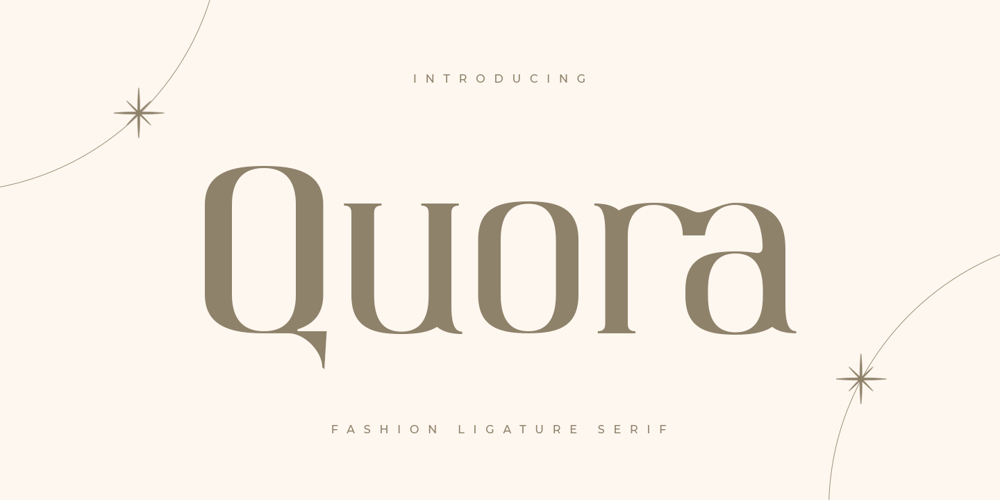
Quora Style Font Family was designed by Zamroni Hamzah and published by Sensatype Studio. Quora Style contains 1 styles and family package options. A Fashion Ligature Serif font that we created special for elegant branding needs, with extra ligature and alternates in unique shape will be ready to add value of your brand. It so nice to leverage designer or product owner that need solutions to make their design look more classy and modern. And specially for this font, We prepared any ligatures, and any alternate characters to help you create unlimited variations for your creative needs.Quora serif font ready with: Any options to get creative variations (combination of Alternate and Ligatures) Preview as a inspirations that you can do with Quora font Ready with Lowercase and Uppercase characters Wish you enjoy our font. ๐